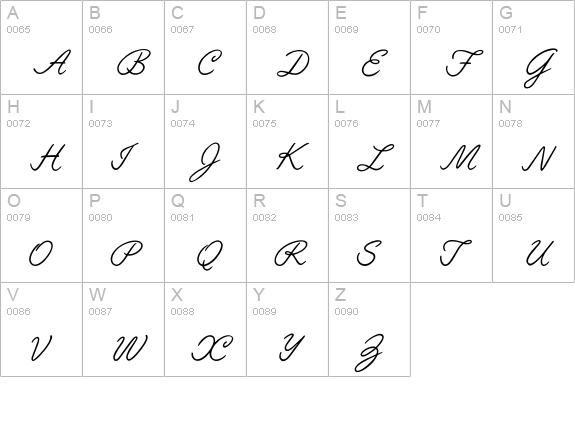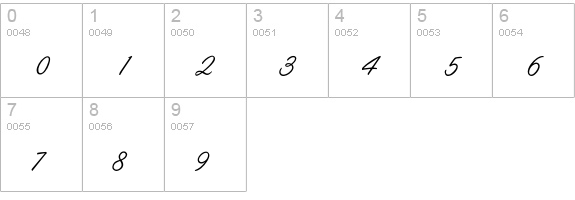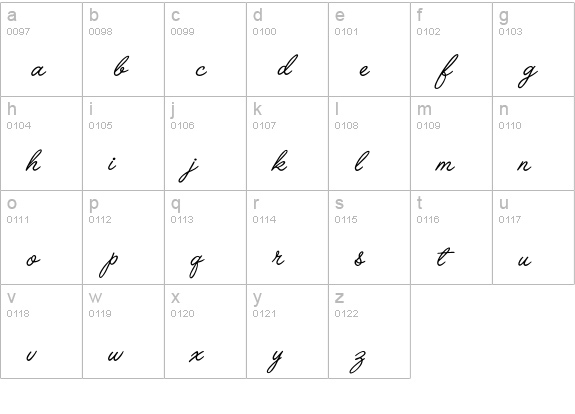
DanielScript Font Details
Introducing DanielScript, a captivating and versatile font that will add a touch of elegance to any project. With its graceful curves and delicate strokes, this font is perfect for creating stunning designs, whether for invitations, logos, or branding materials. DanielScript is a free font that brings together the beauty of traditional calligraphy with a modern twist. Its flowing lines and intricate details will instantly catch the eye and make a lasting impression. The careful craftsmanship and attention to detail in each letter showcase the dedication and passion of its creator. This font offers a wide range of characters, including both uppercase and lowercase letters, numerals, punctuation marks, and special ligatures. Its versatility allows it to adapt to various design styles, from classic and formal to contemporary and playful. The best part is that DanielScript is freely available to download at FontsMarket.com. This means that you can bring this exquisite font into your creative projects without any cost, making it accessible to designers and individuals alike. Whether you are a professional designer looking to add a unique touch to your work or an enthusiast seeking to add a personal flair to your documents, DanielScript is the perfect choice. Don't miss out on the opportunity to enhance your designs with this remarkable font. Download DanielScript for free today at FontsMarket.com and let your creativity soar to new heights.